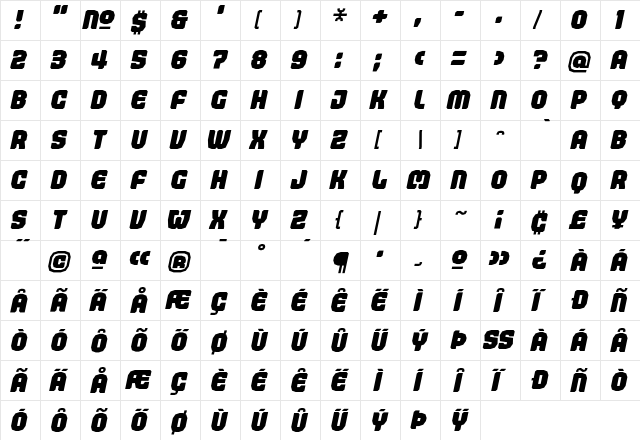
Judgement Italic
Design Context for Judgement Typeface
Judgement offers clean, dependable letterforms without strong stylistic allegiance, making it a practical choice for designers who need flexibility. The slanted form adds forward momentum and visual energy.
Pro Tip: Use Judgement for emphasis, pull quotes, and subheadings where its slanted energy can add rhythm to the layout.